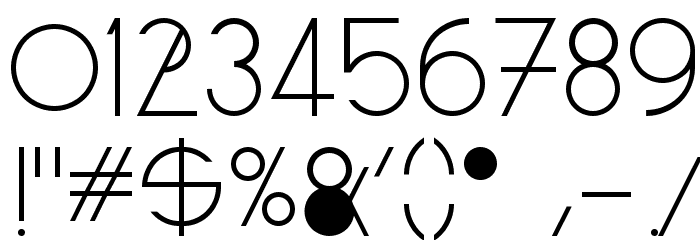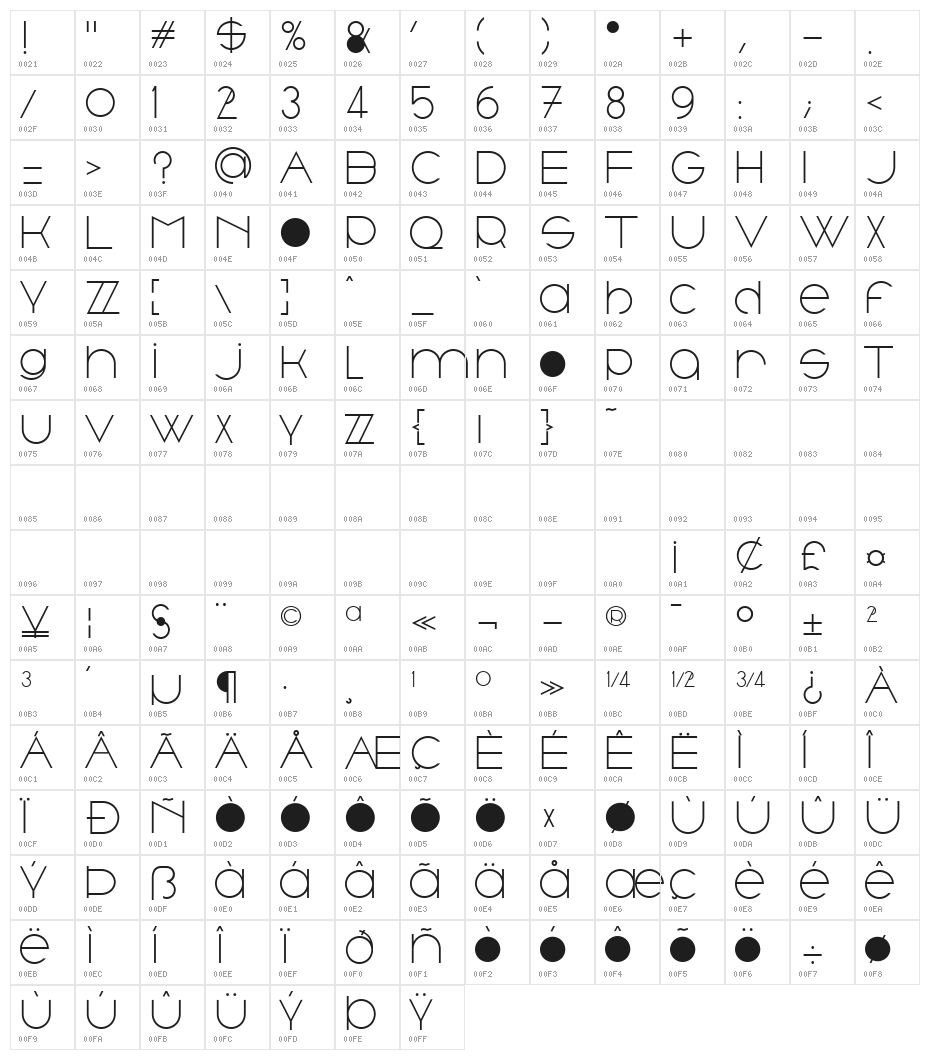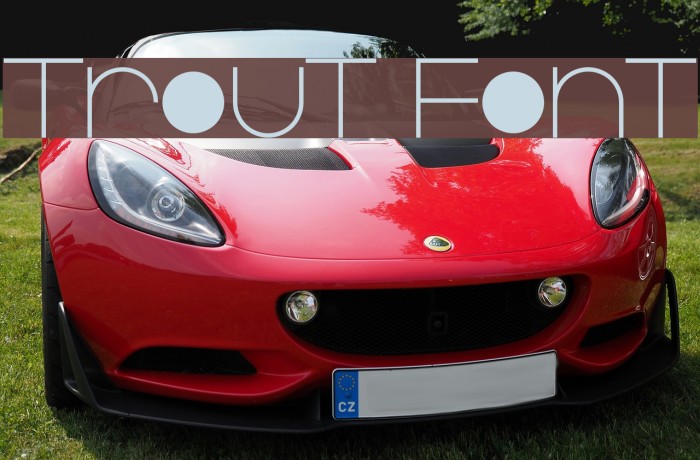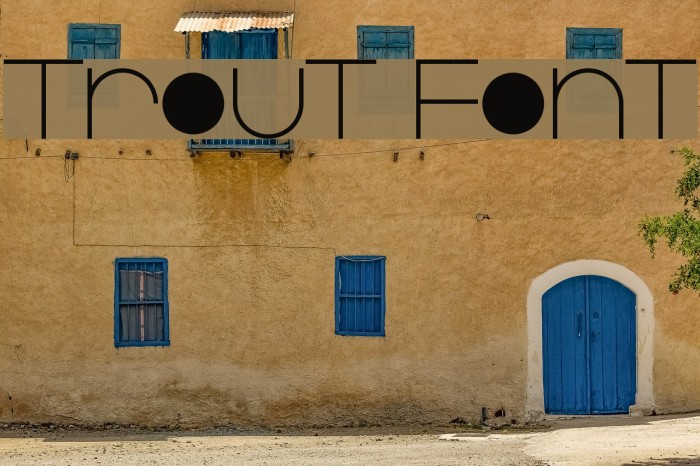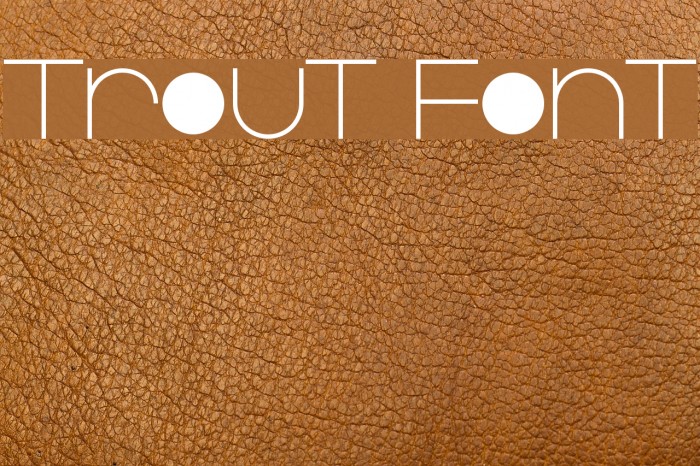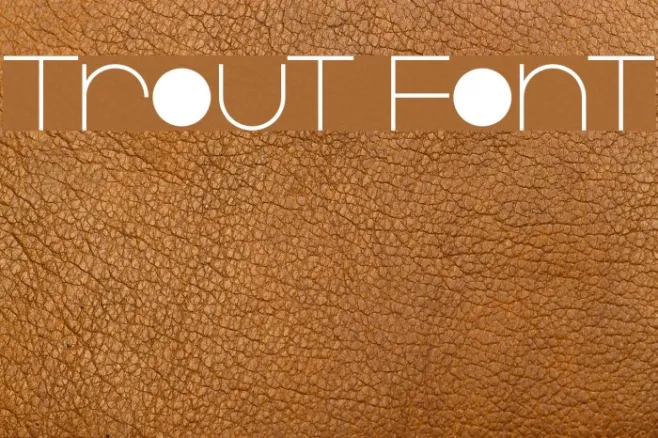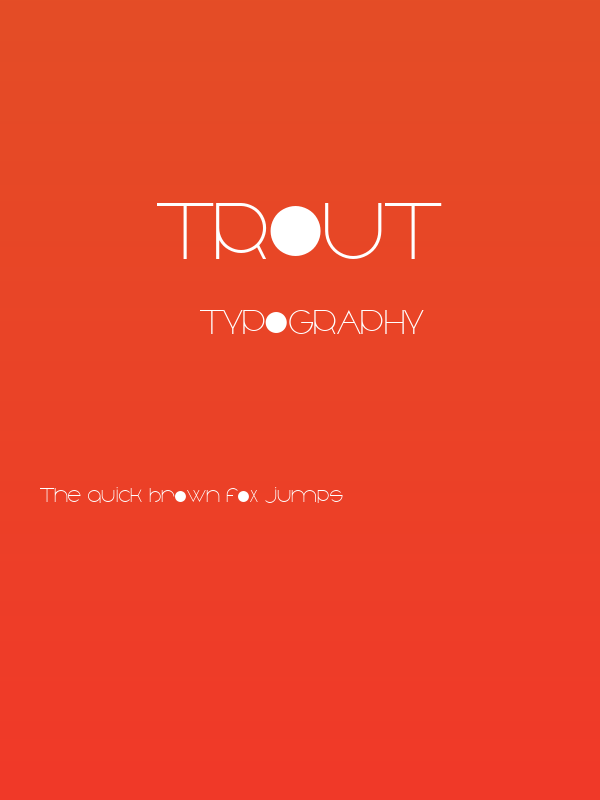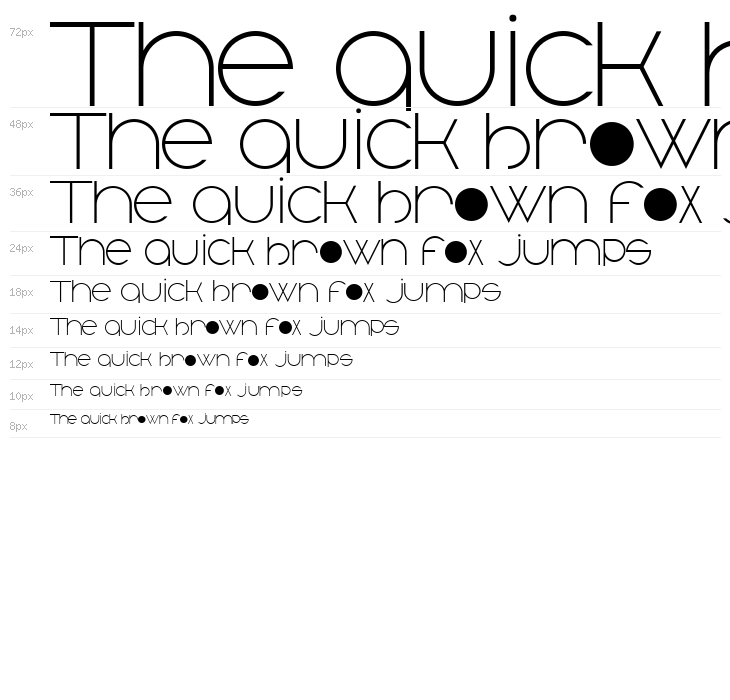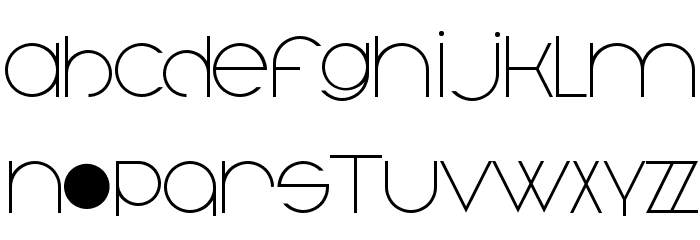
Trout Font
Trout Description
This font features a modern and minimalist design with clean, geometric lines. The uppercase and lowercase letters are crafted with a consistent stroke width, giving it a sleek and contemporary appearance. The circular elements within certain characters, such as 'O' and 'Q', add a unique touch to the overall aesthetic. The numerals are equally balanced, maintaining the geometric theme. Special characters are designed with the same precision, ensuring uniformity across all glyphs. This font is ideal for projects that require a modern and sophisticated look.
| Proposed Projects | Ideal for branding, logos, modern web design, and editorial layouts. |